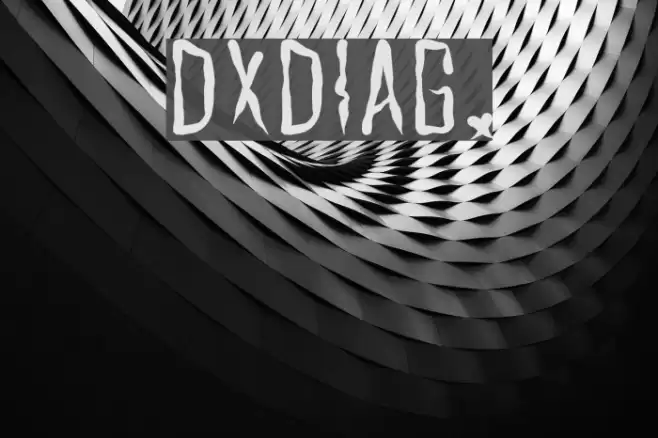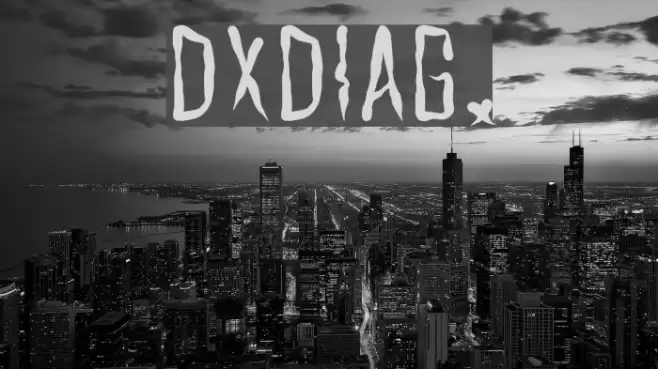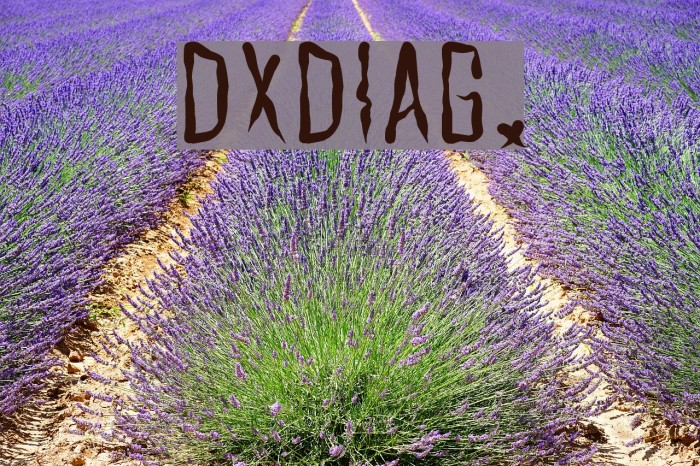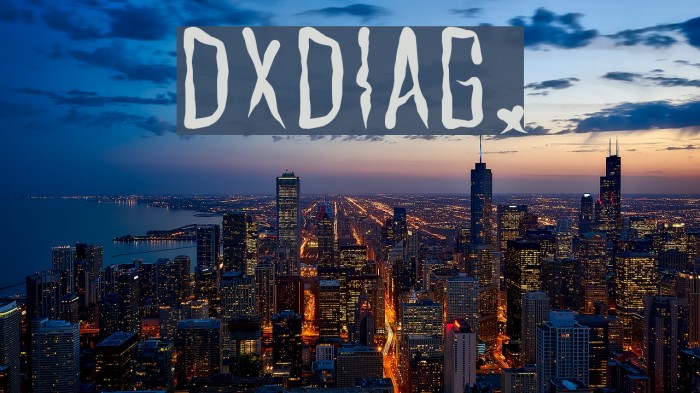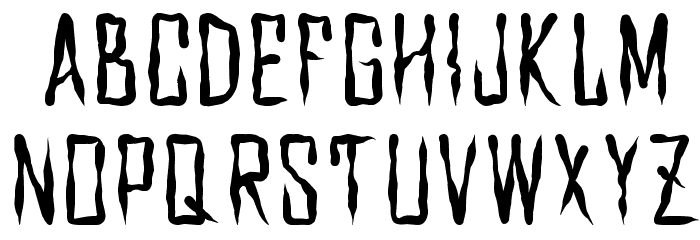
DXDIAG. Font
DXDIAG. Description
This font features a unique, jagged style that gives it a dramatic and edgy appearance. The characters are sharply pointed and irregular, creating a sense of movement and intensity. The uppercase and lowercase letters maintain a consistent height, while the numbers and special characters follow the same sharp and angular design. The overall look is reminiscent of a horror or thriller theme, making it ideal for projects that require a bold and striking visual impact. The font's distinctiveness makes it stand out, ensuring that any text set in this style will capture attention.
A jagged, edgy font with sharp, irregular characters ideal for dramatic themes from Graffiti fonts.
- Proposed Projects: Perfect for horror movie posters, Halloween event flyers, edgy branding, and album covers.